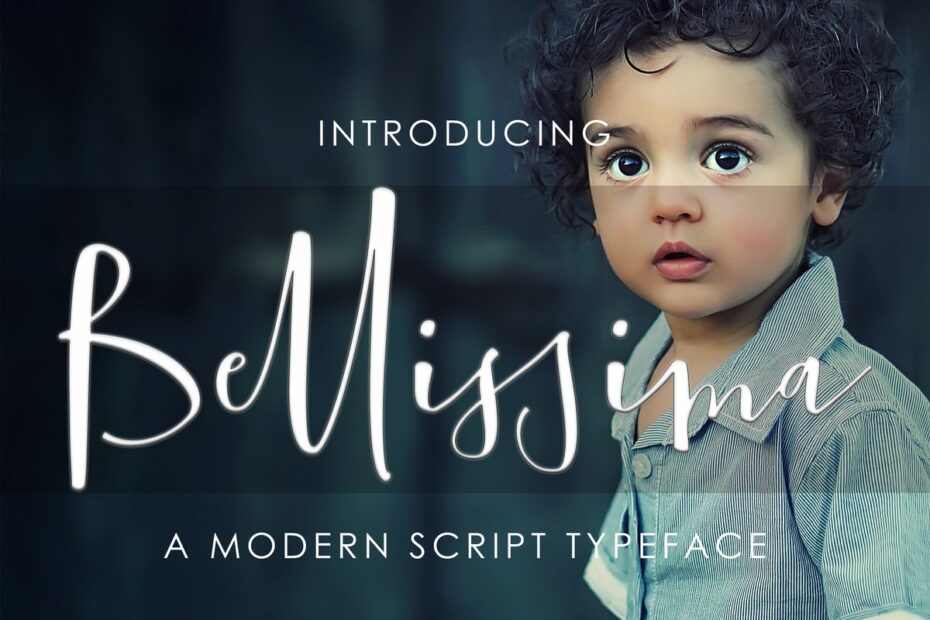
The Perfect Script for Your Next Design Project
Have you ever been in a rush to meet a design deadline, frantically searching for the perfect font to elevate your project? I know I have. That’s when I stumbled upon the Bellissima Font – a game-changer for any designer looking to add a touch of elegance and whimsy to their work.
Bellissima Font is a bold and fun script font designed specifically for headlines and display purposes. Its unique blend of classic style and modernity makes it a timeless choice for designers seeking to create truly captivating typography.
Whether you’re a seasoned pro or just starting out, the Bellissima Font is an invaluable addition to your design toolkit. Its versatility and unique character make it perfect for a wide range of projects, from logos and branding to advertising and editorial content.
Bellissima Font Key Features
- Font Size: 6,000 glyphs, making it a highly legible and versatile font
- Resolution: Optimized for high-resolution displays, ensuring crisp and clear text at 300 DPI and above
- Language Support: Supports over 200 languages, including Latin, Cyrillic, and Greek scripts
- Unique Characteristics: Features elegant, cursive-like strokes and a classic feel, making it perfect for creative and formal applications
- Font Weight: Available in Regular, Italic, Bold, and Bold Italic weights, offering a range of styling options
Bellissima Font Review
I recently had the chance to work with the Bellissima font, and I have to say, it’s a real showstopper. Here’s my honest review.
- Elegant feel – The Bellissima font exudes sophistication and class, perfect for high-end branding or luxury goods.
- Versatility – It’s available in a range of weights and styles, making it suitable for various design projects, from headings to body text.
- Beautiful curves – The font’s curves are a highlight, adding a touch of whimsy and personality to your designs.
- Limited legibility – At smaller font sizes, the Bellissima font can become difficult to read, particularly for body text.
- Overly ornate – While the curves are a highlight, they can also make the font feel overly ornate or busy in some contexts.
The Bellissima font is a beautiful, high-end option that’s perfect for luxury brands or designers looking to add a touch of elegance to their projects. While it has some limitations, it’s well worth considering for the right design projects.
Bellissima Font is ideal for:
- Magazine and newspaper headlines
- Special occasion cards and gifts
Tips for Getting the Most Out of Bellissima Font
To get the most out of Bellissima Font, try:
- Pairing it with bold and elegant fonts for contrast
- Using it for titles and headings
- Set the font as the primary font for the invitation’s title and headings.
- Pair the Bellissima Font with a classic serif font for the body text to create a balanced and harmonious look.
- Combine the Bellissima Font with floral patterns and lace designs to create a whimsical and romantic atmosphere.
- Use gold or silver foil stamping to add a touch of luxury and sophistication to the invitation.
- Set the Bellissima Font as the primary font for the logo’s text, emphasizing the brand’s name or tagline.
- Pair the Bellissima Font with a custom icon or a stylized letter to create a unique and memorable logo.
- Combine the Bellissima Font with a metallic or glossy finish to add a touch of luxury and sophistication.
- Use a clean and minimalist design aesthetic to let the Bellissima Font take center stage.
Can I customize the Bellissima Font?
Yes, Bellissima Font is a highly customizable font. It supports advanced typographic features, including ligatures, swashes, and ornaments. You can use font editing software or a text editor to customize the font to suit your design needs.